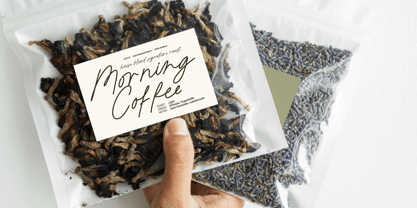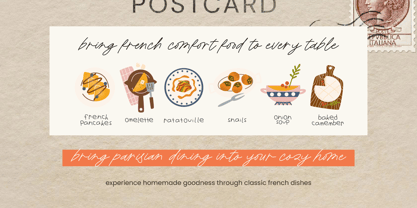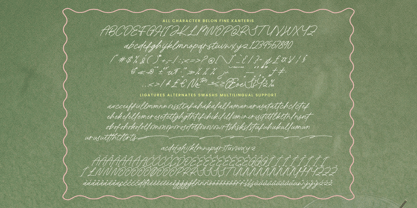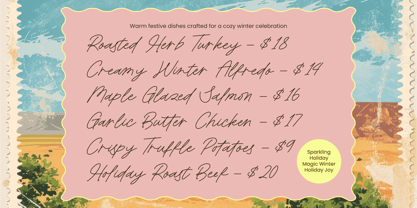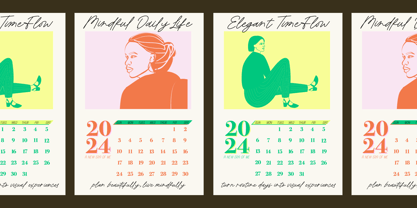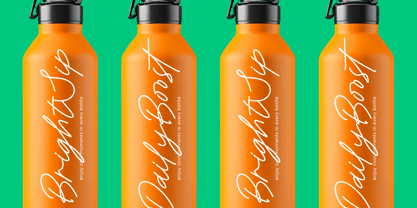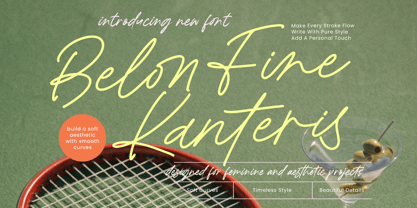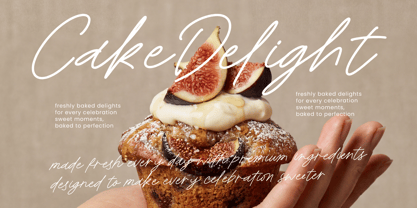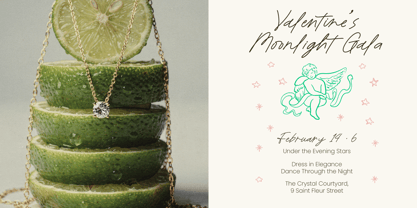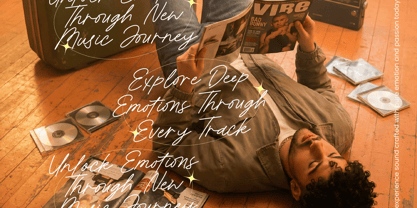
Belon Fine Kanteris
The Belon Fine Kanteris Font Family was designed by Heru Utama Putra and published by Letterena Studios. Belon Fine Kanteris contains 2 styles and family package options. More about this family
Belon Fine Kanteris - Monoline Handwritten Font offers a unique blend of modern elegance and organic flow. Its consistent line weight creates a monoline aesthetic that feels both personal and polished, perfect for brands wanting to strike a balance between premium quality and authentic connection. The smooth curves and rhythmic strokes of Belon Fine Kanteris - Monoline Handwritten Font ensure that every design feels approachable yet deeply refined.
Discover the perfect typographic partner for high-end projects and lifestyle branding. This typeface is an ideal solution for luxury branding, editorial design, and bespoke stationery. Whether it is used for fashion lookbooks, wedding invitations, or premium packaging, Belon Fine Kanteris - Monoline Handwritten Font adds a signature touch that resonates with luxury. It is perfect for social media graphics, travel blogs, and upscale restaurant menus where a hand-crafted personality is essential to the brand identity.